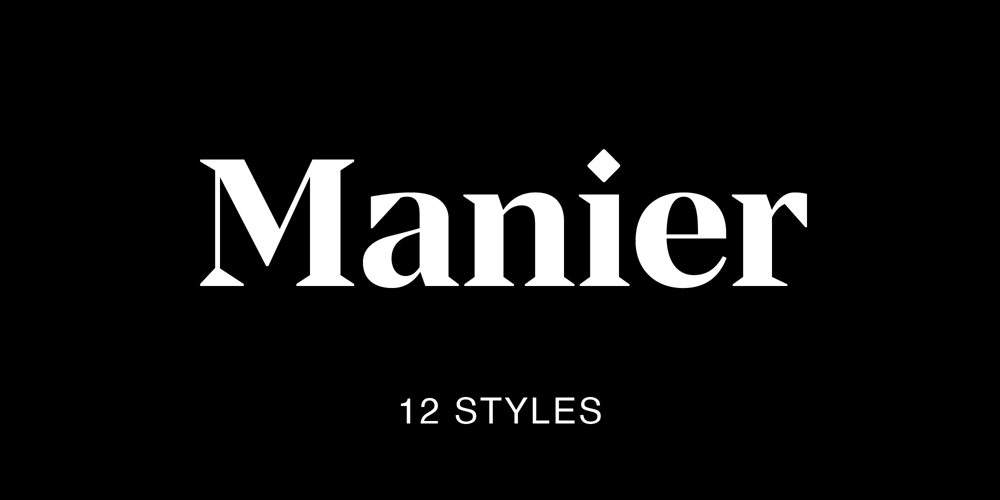
Manier Font Family was designed by Piotr Łapa and published by Piotr Łapa. Manier contains 12 styles and family package options. Manier is a fresh, display, wedge-serif font family inspired by transitional and contemporary typefaces. Manier has a big x-height value, modern proportions, sharp serifs and an extreme stroke contrast with a vertical stress. The Roman style is paired with dynamic Italics which combines the elements of classic Cursive and the characteristics of Manier. The typeface is a great choice for headlines, titles, posters and branding but also can be successfully used in occasional texts.